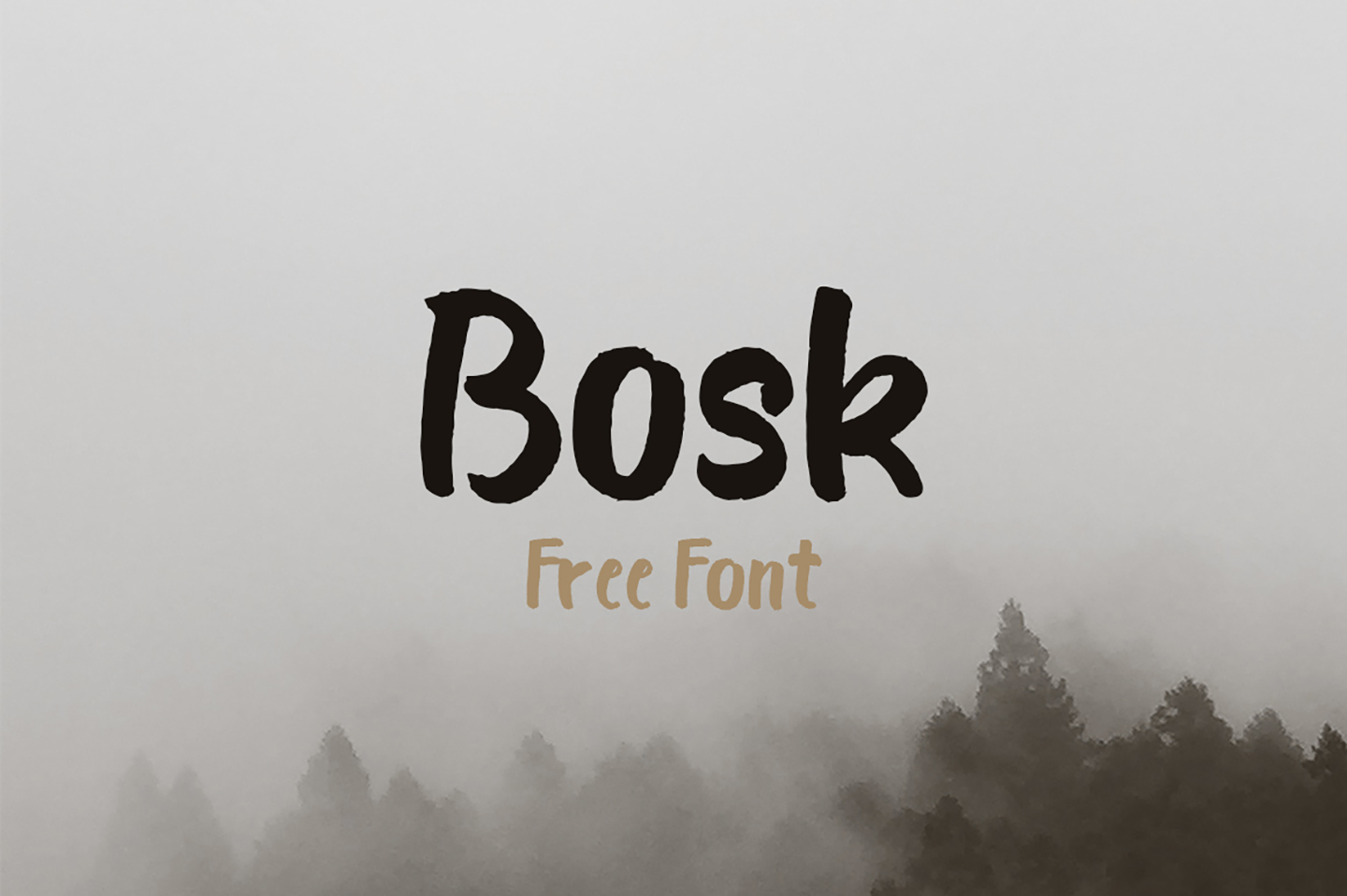
Bosk Brush Font
Bosk is handmade brush font designed for everything vintage and grungy!
The font comes with over 400 characters
Multilingual support includes Russian, Cyrillic, Central European, Turkish etc.